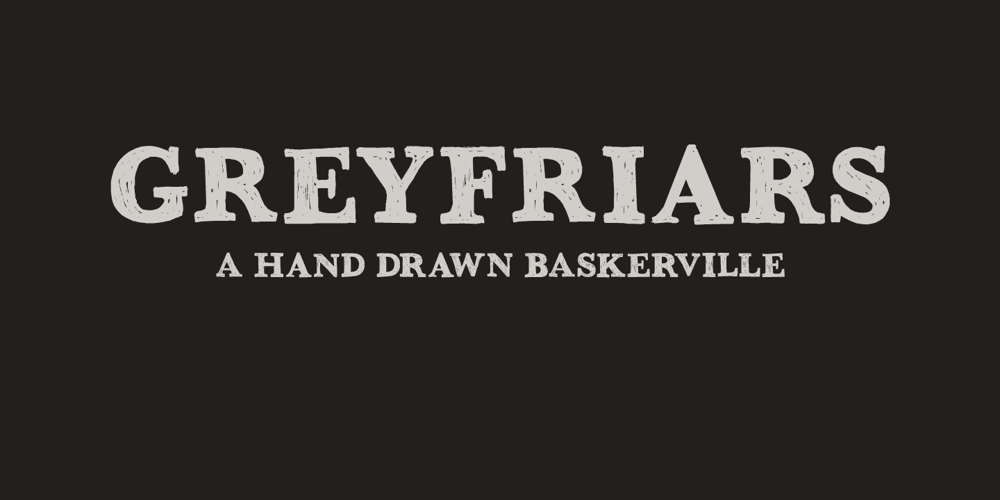
Greyfriars
Greyfriars font
Greyfriars Font Family was designed by David Kerkhoff and published by Hanoded. Greyfriars contains 2 styles and family package options. Greyfriars Kirkyard is the graveyard surrounding Greyfriars Kirk in Edinburgh, Scotland. I needed a rather ‘English’ name for this hand drawn Baskerville, but I ended up with a Scottish one. Greyfriars font was hand drawn with a Japanese brush pen. It is based on Baskerville, a font I really like. The glyphs are a bit rough and jumpy, which adds to Greyfriars’ unique look. Use it for your titling, book covers and product packaging, or stick it in a website and see what happens! Comes with a jolly bundle of diacritics.